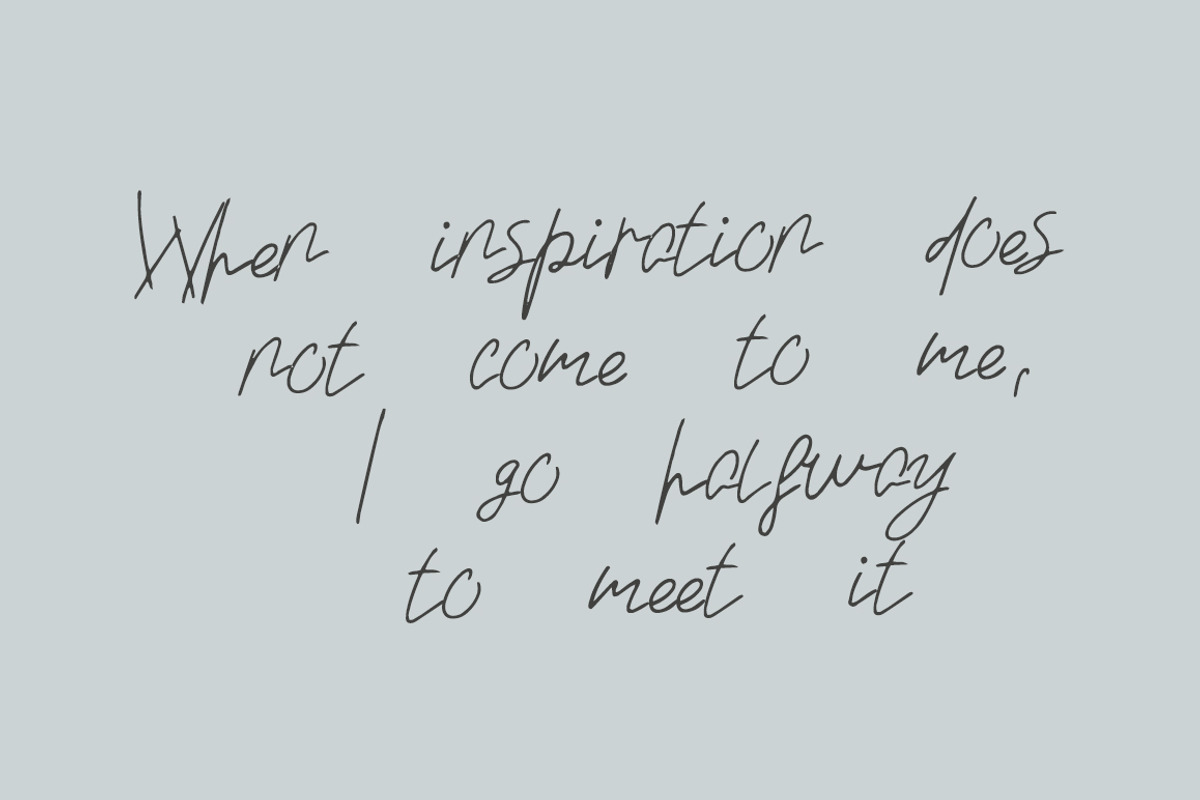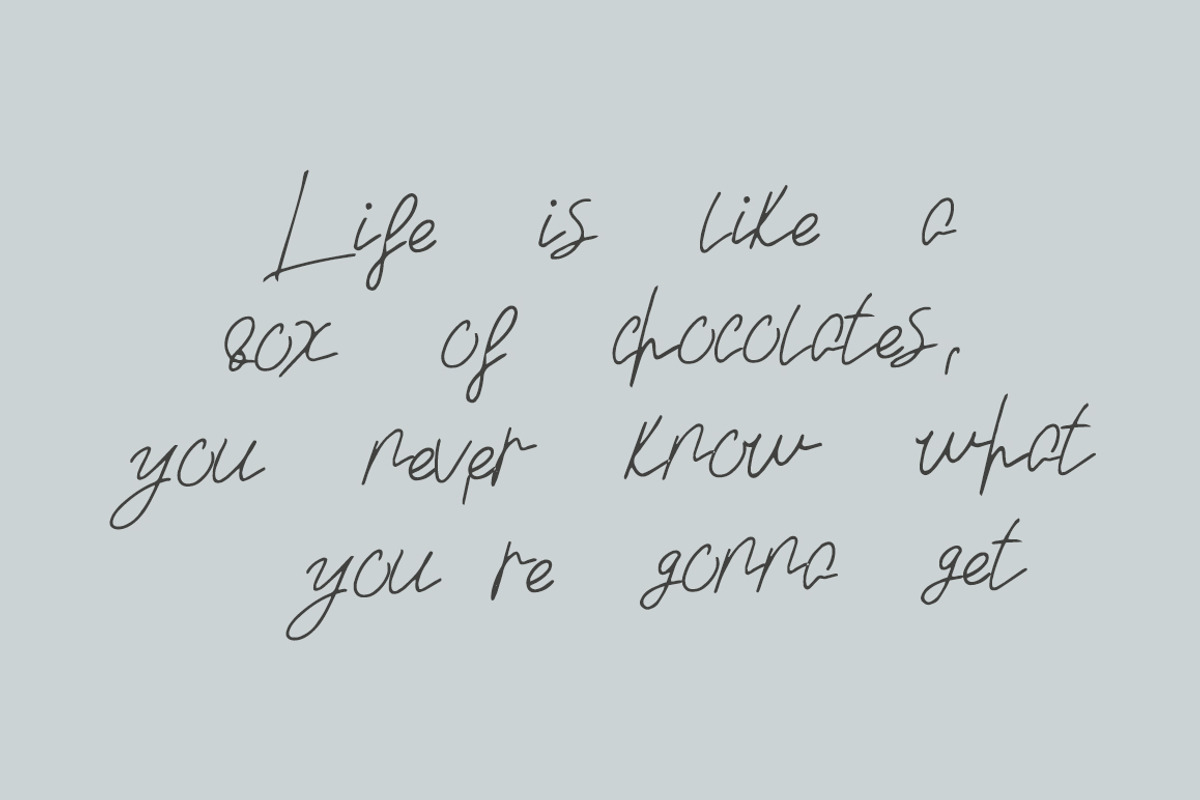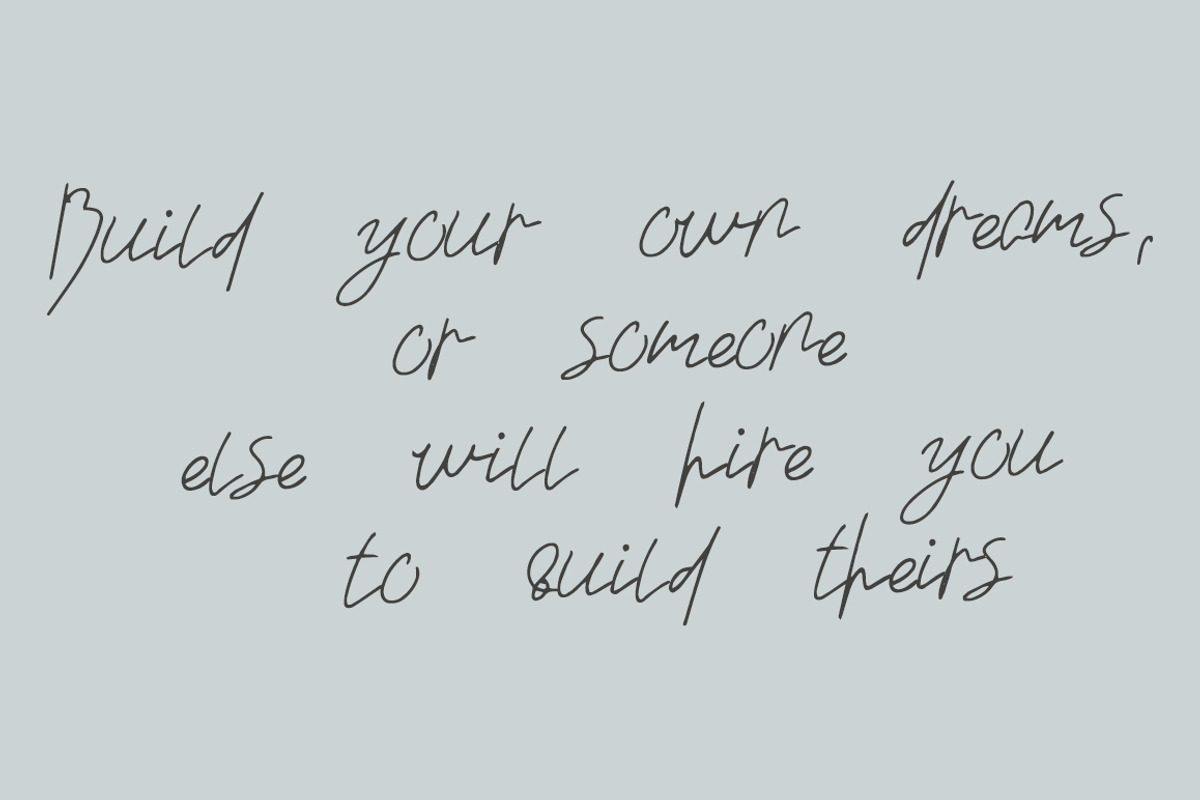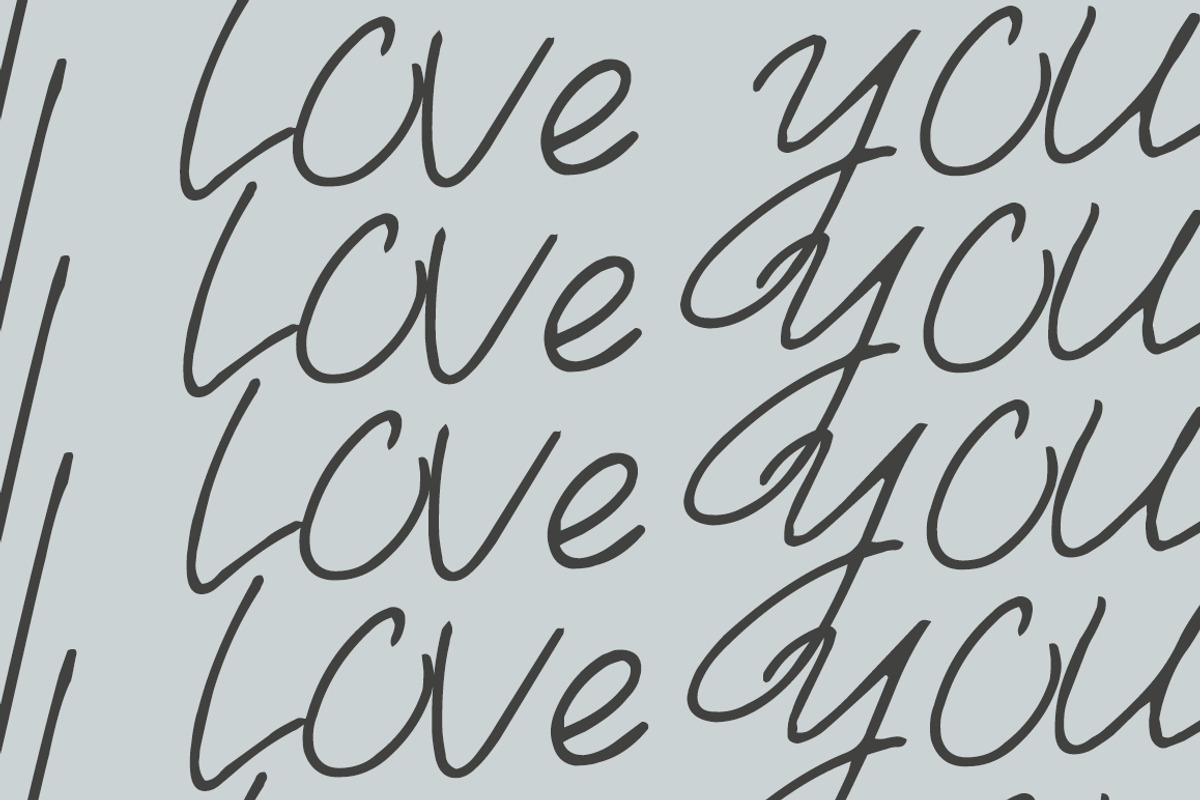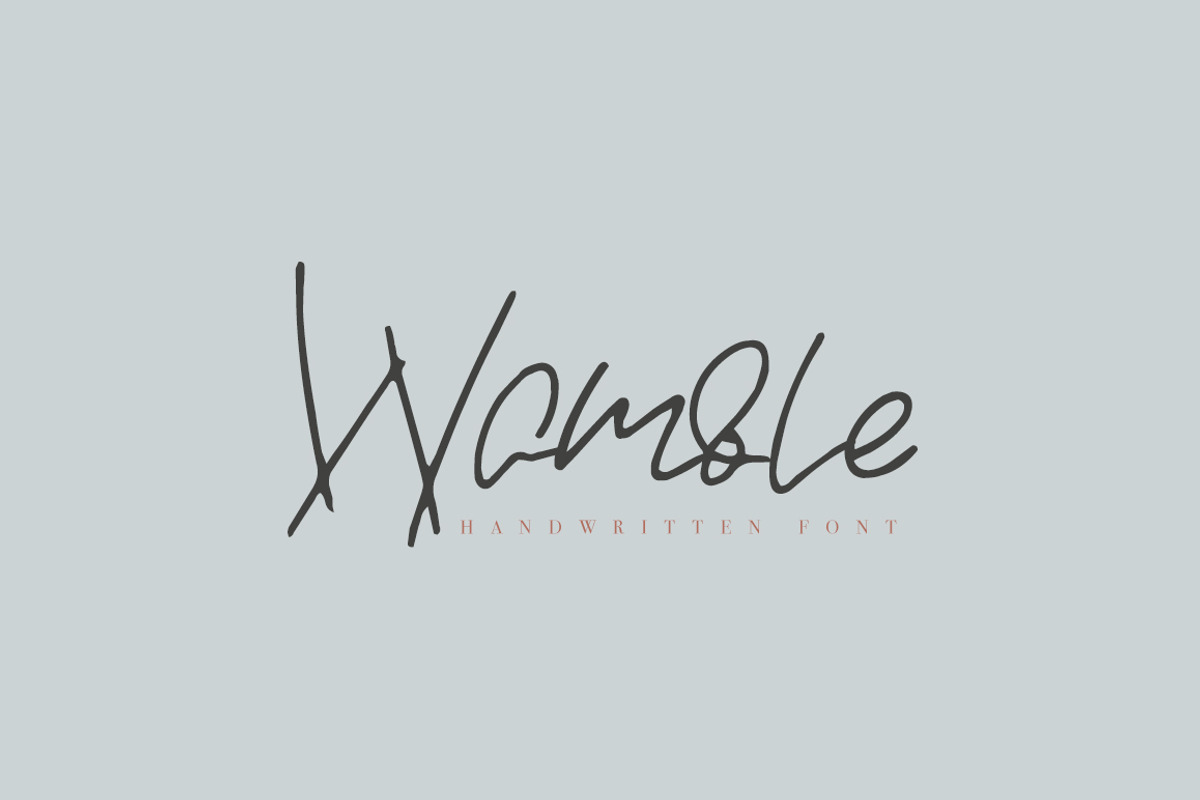
Wamble
Wamble is sweet and playful, but also Crafty. This versatile script font has a wide range of applications ranging from greeting cards to kids’ crafts, and is guaranteed to add a sweet touch to your next design.